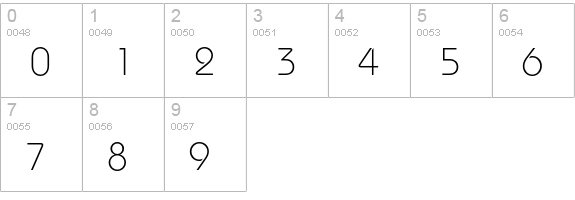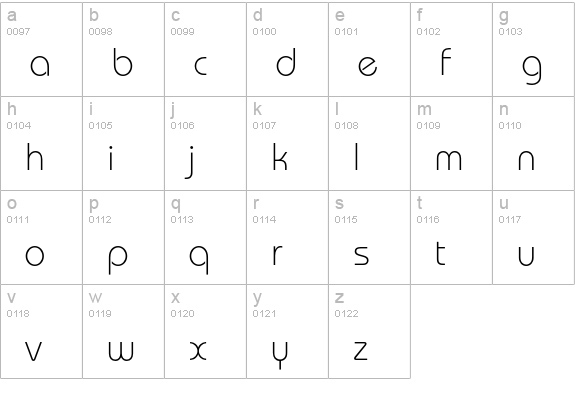
BauhausEF-Light Font Details
BauhausEF-Light is a refined, elegant variant in the BauhausEF typeface family \xE2\x80\x94 well suited to elegant body text, refined sub-headings, and luxury branding.
BauhausEF-Light font is a sleek and modern typeface that exudes sophistication and elegance. With its clean lines and minimalistic design, this font is perfect for a wide range of design projects, from branding to editorial layouts. The light weight of the font adds a touch of delicacy and refinement to any text, making it a versatile choice for both print and digital applications. What makes BauhausEF-Light font even more appealing is that it is available for free download at FontsMarket.com. This means that you can easily access this high-quality font without any cost, making it an excellent option for designers on a budget or anyone looking to enhance their projects with a stylish and professional typeface. Don't miss out on the opportunity to elevate your designs with the timeless charm of BauhausEF-Light font, now just a click away at FontsMarket.com.